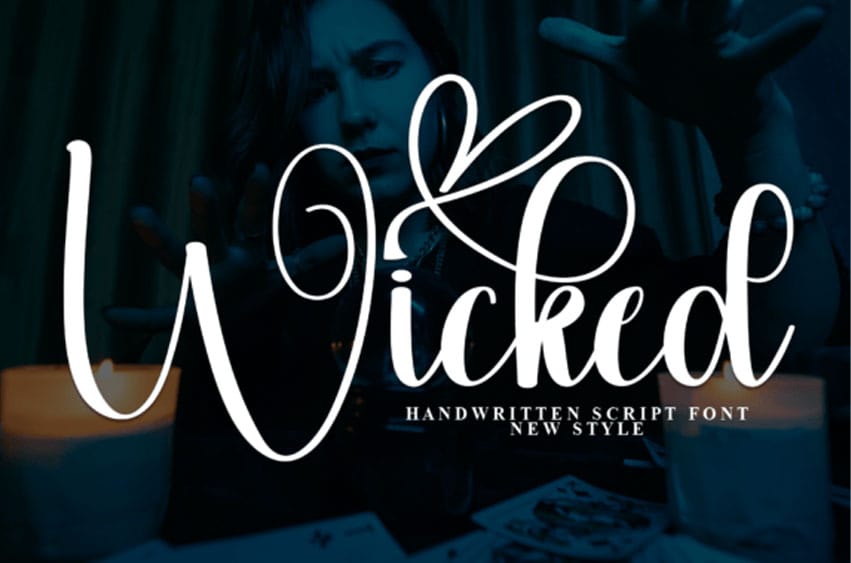
Wicked Script Font: Introducing the charming allure of our friendly handwritten display typeface, synonymous with sweetness and warmth. Embodied in each curve and line, this font exudes an endearing appeal perfect for crafting.
Whether it’s wedding invitations, heartfelt cards, or design projects destined to spread joy, this font delicately adds a playful touch while maintaining sophistication. Immerse your creative work in a sea of cheerfulness and affection with this delightfully versatile font.